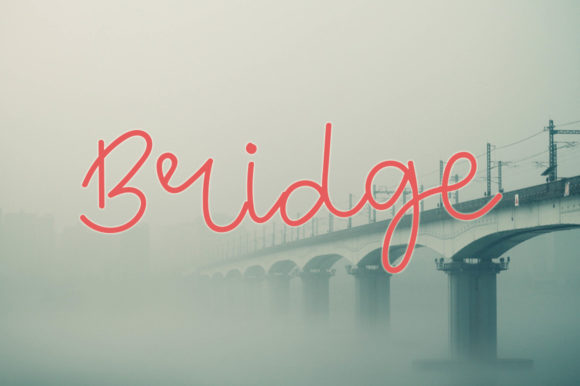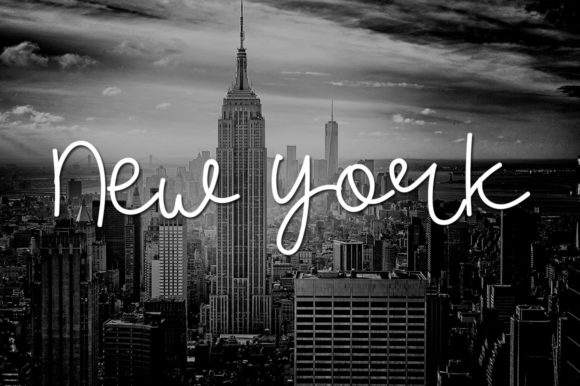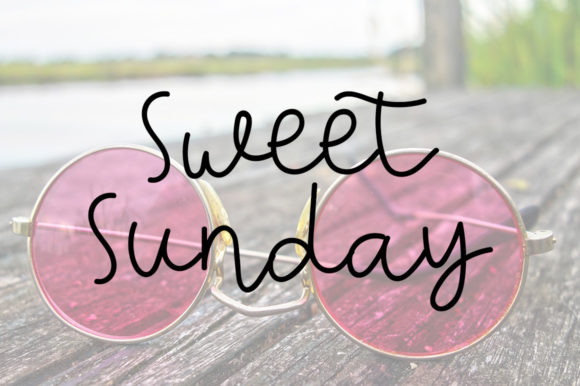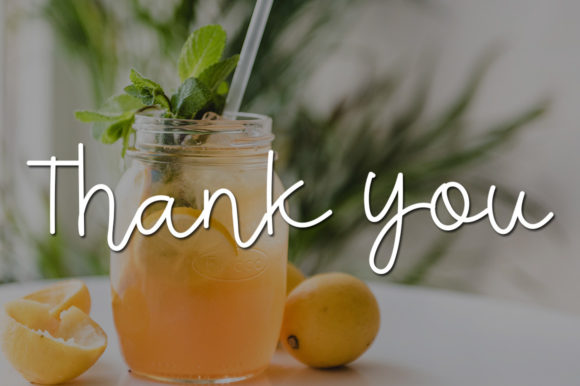
Vintage Font
VintageĀ is a cute and simple lettered handwritten font that can be used for all chalkboard quotes or teaching material! Its authentic look will add a personal and realistic feel to your designs.